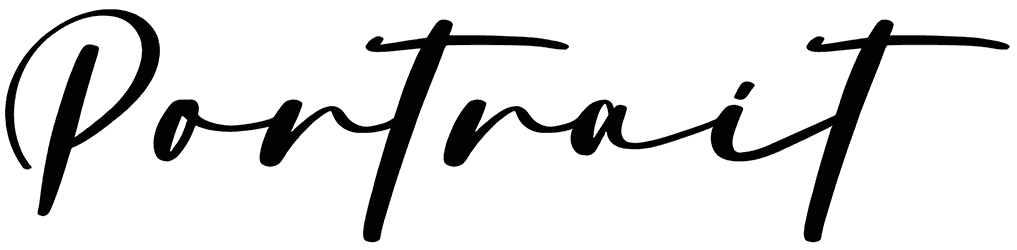
Portrait Font
Using an artistic and modern style for your words will be a professional selection, and this signature font is an impressive one. This quote font has a noble and eye-catching visual, but the letters are a bit unreadable. Benefit from the Portrait font to make a unique business card for a tattoo artist and amaze your followers.